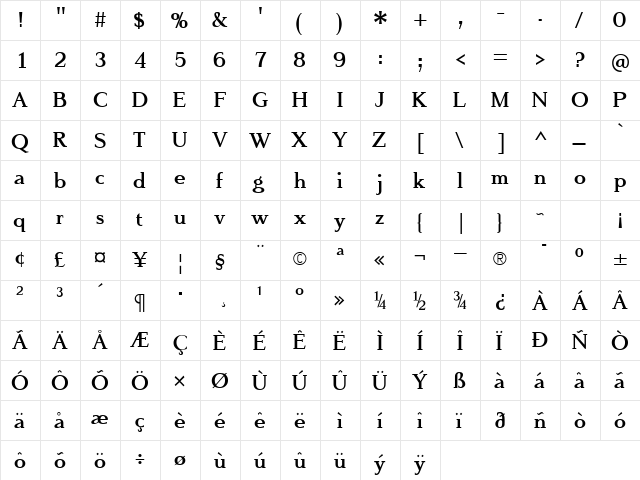
FlyHigh Bold
Design Context for FlyHigh Typeface
FlyHigh offers clean, dependable letterforms without strong stylistic allegiance, making it a practical choice for designers who need flexibility. Its bold stroke weight gives it real presence on the page.